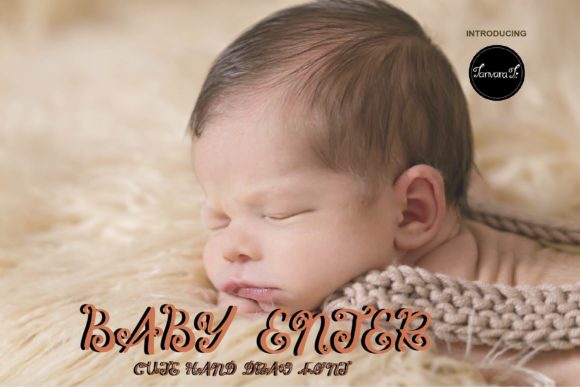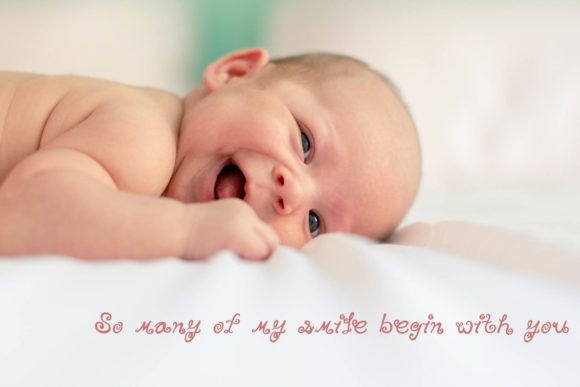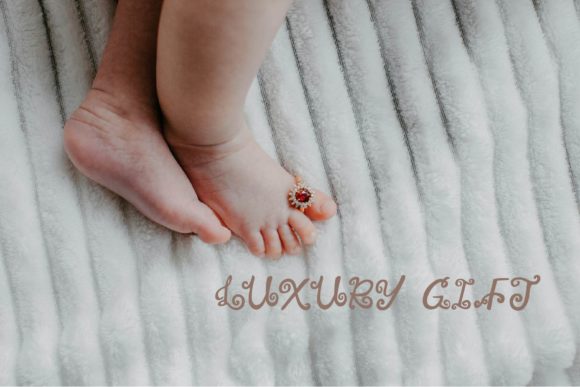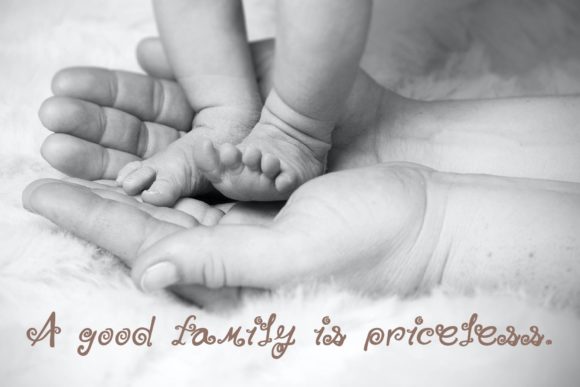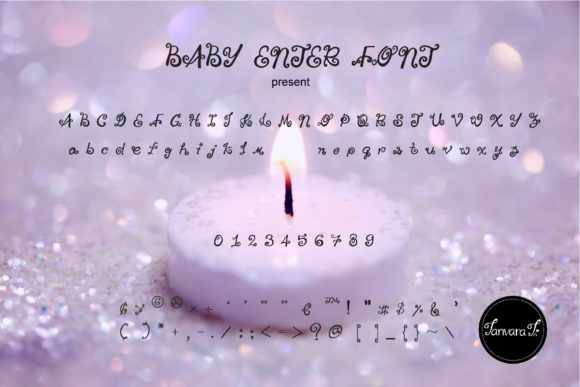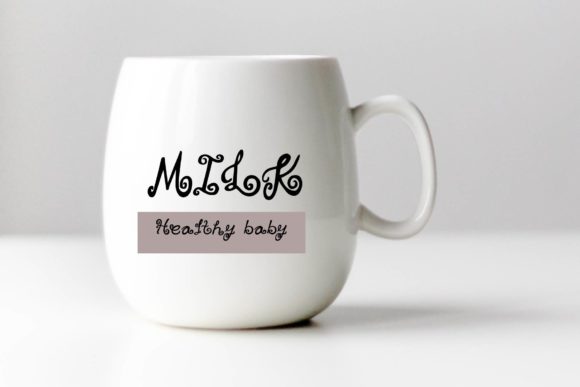
Baby Enter Font
About Baby Enter Font
Baby Enter is cute handwritten font. It features a fun and unique style. Get creative with its playfulness, and use it to brighten up any kids and school project!